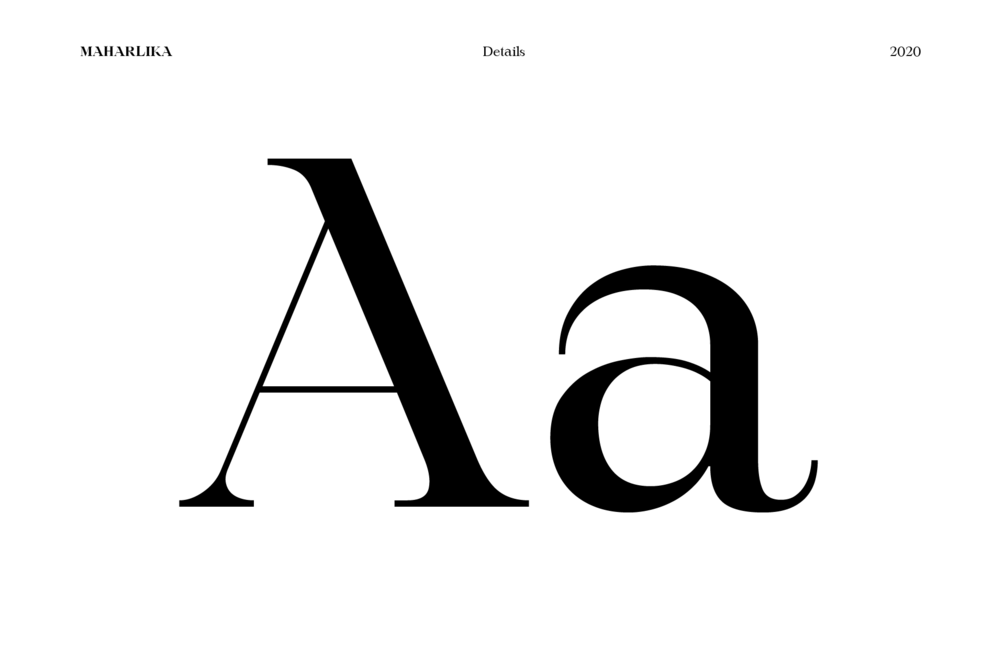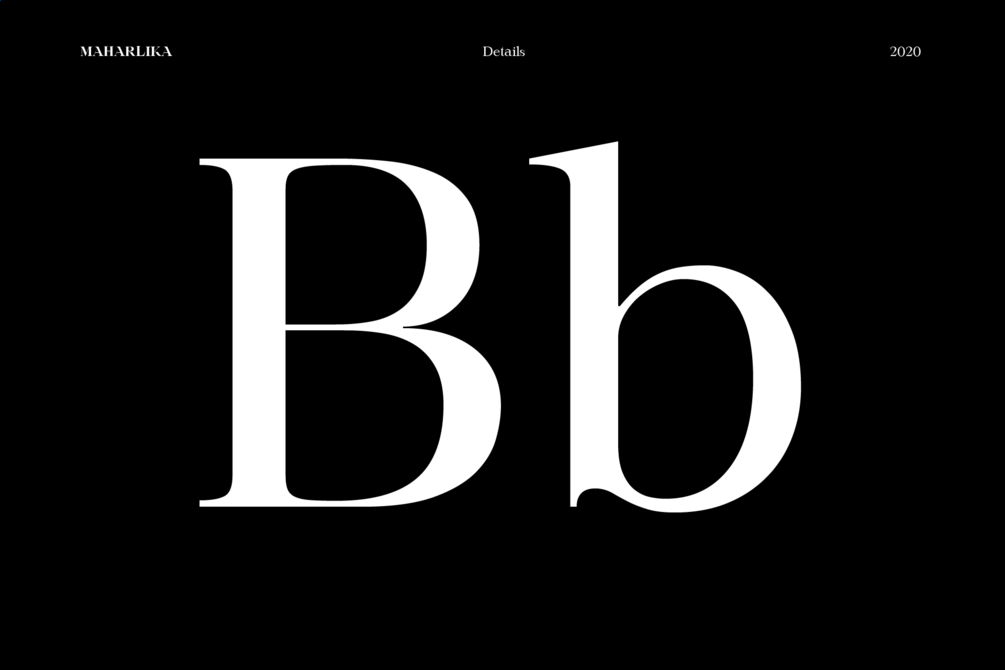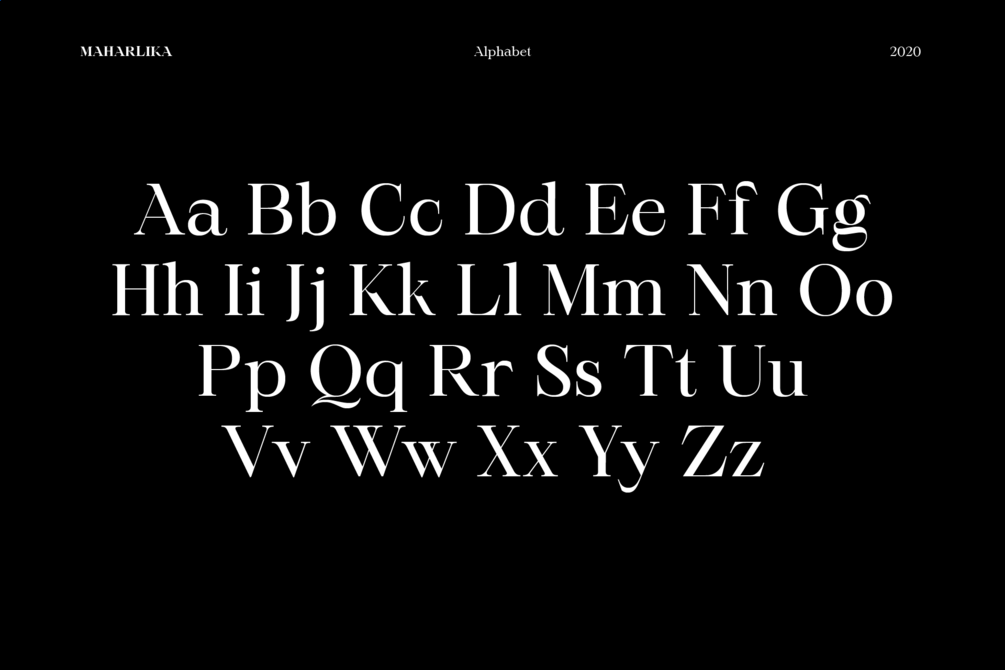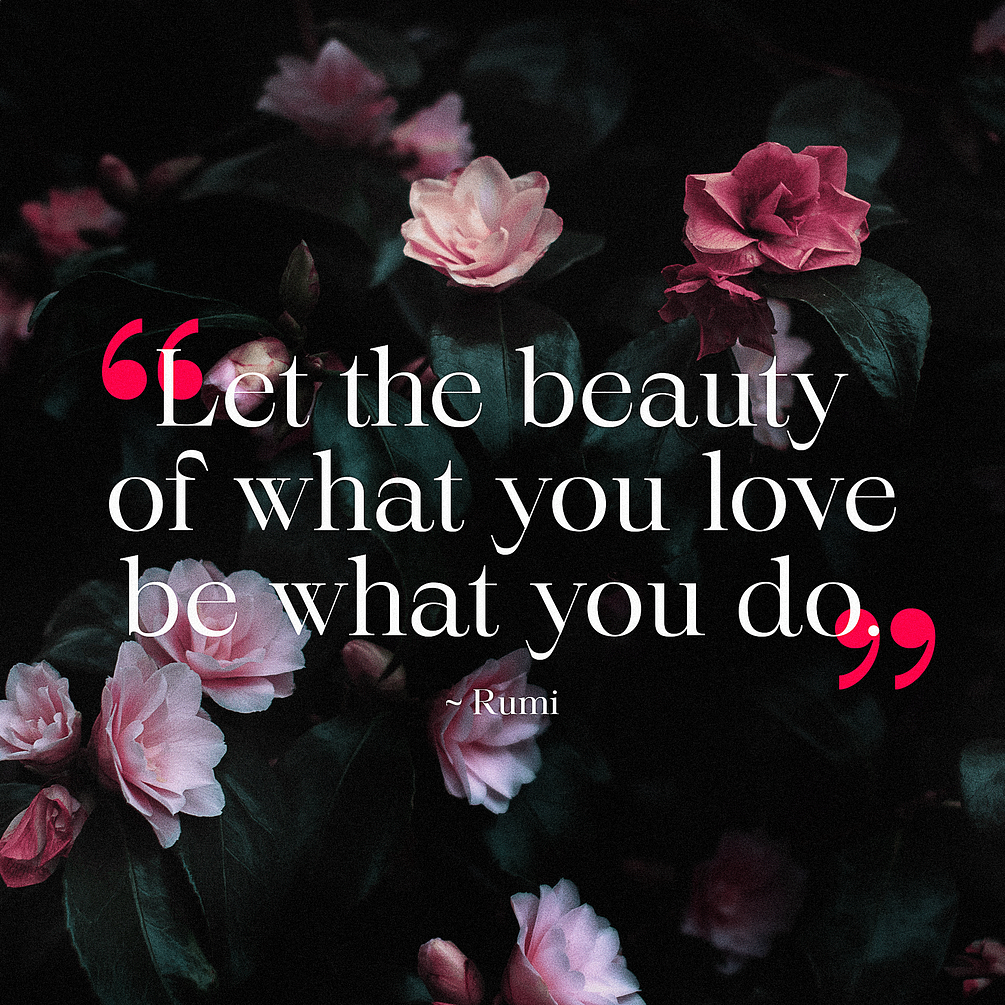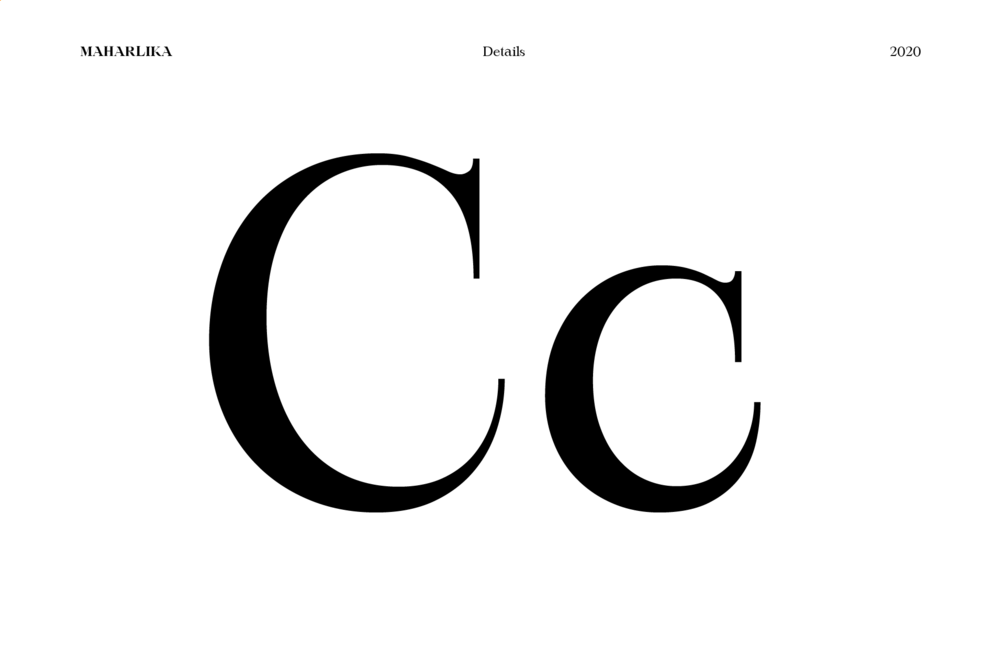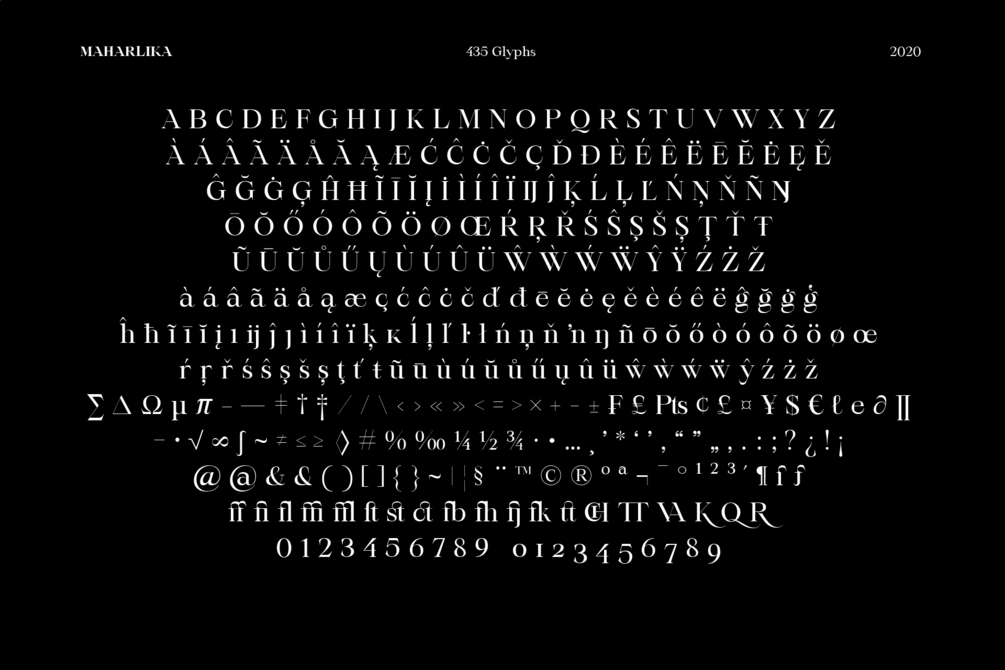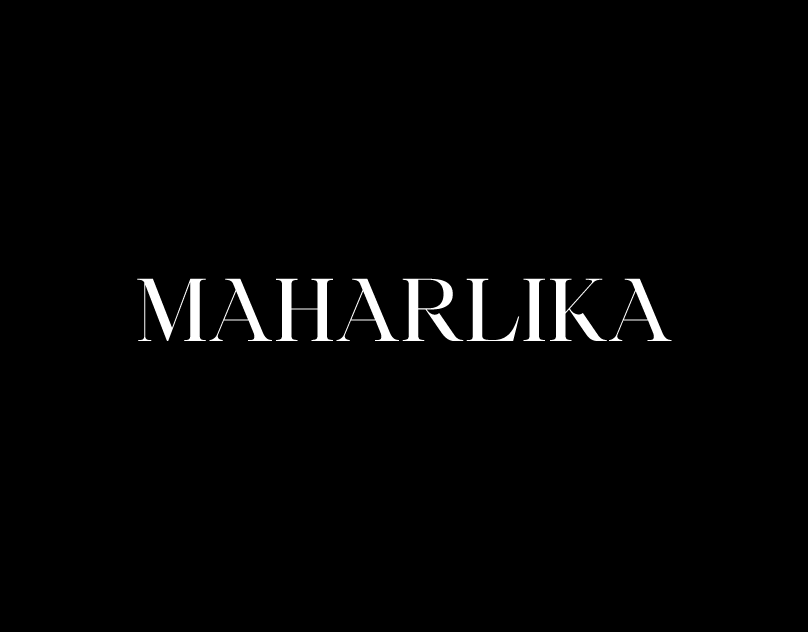
Maharlika Typeface
Maharlika (Freeman) in Filipino is a luxurious, contemporary style serif typeface. It's intended to be used for display, branding or short to medium length texts. This typeface is multilingual, has 435 glyphs, and available in one weight: Regular.